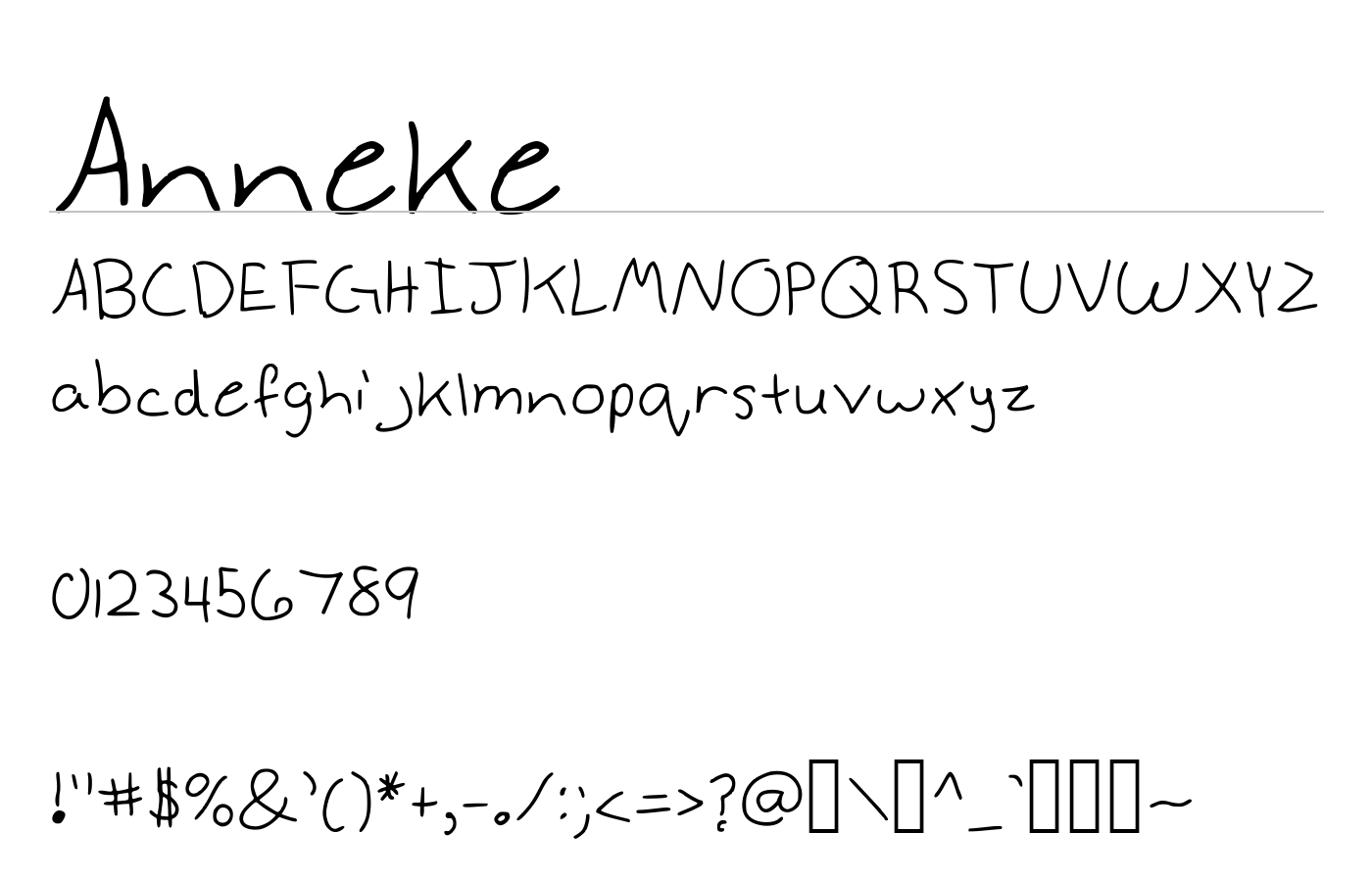
Anneke is a playful and casual handwritten font with a light, airy feel and slightly irregular strokes that mimic natural penmanship. Its thin, flowing lines and friendly letterforms make it perfect for informal and creative designs, adding a personal touch while remaining legible and approachable. This font works well for crafting fun logos, personal branding, invitations, and any project that benefits from a warm, human touch.
Anneke Font
About Anneke Font